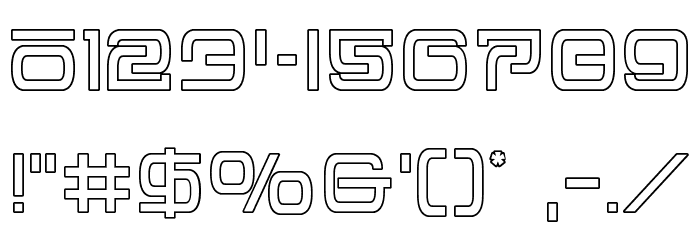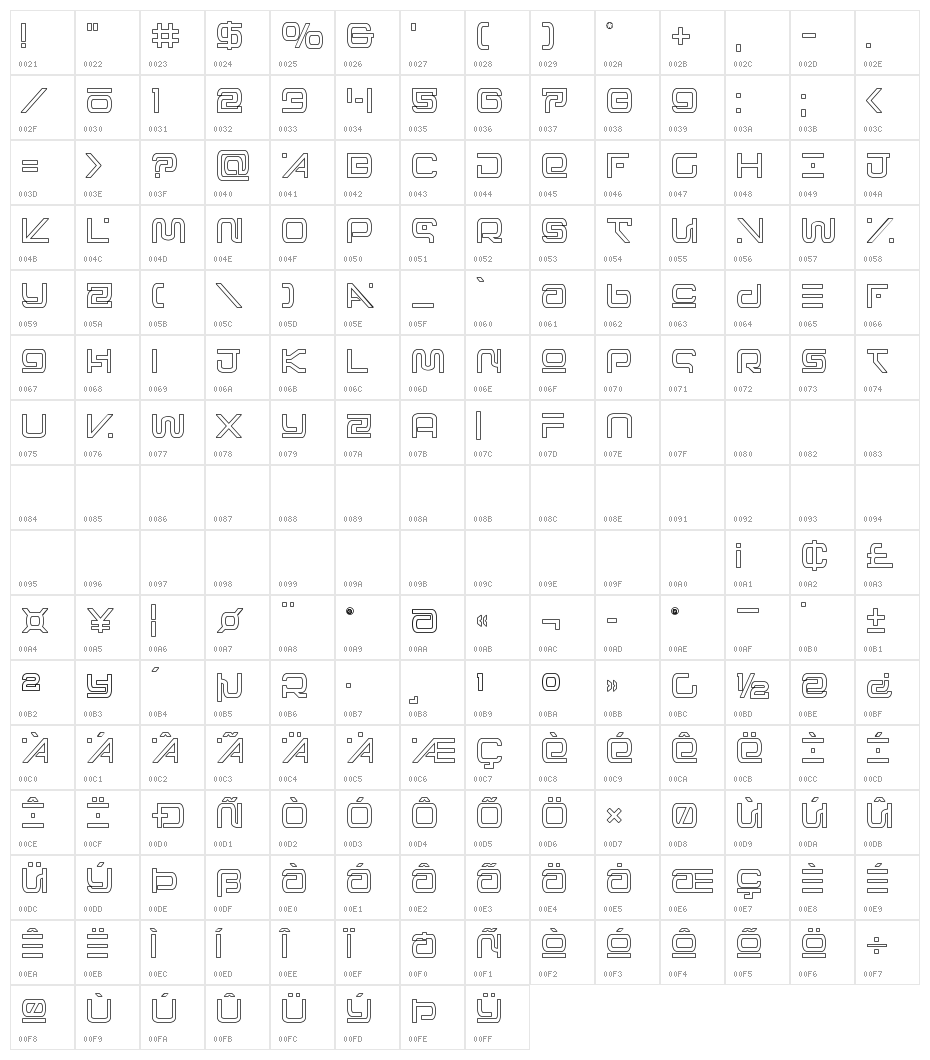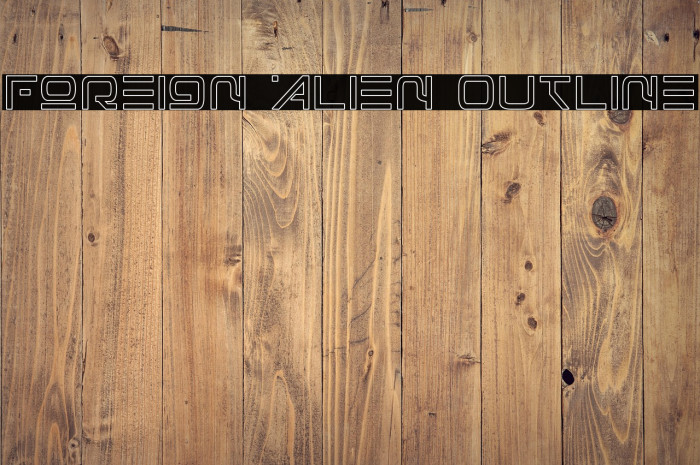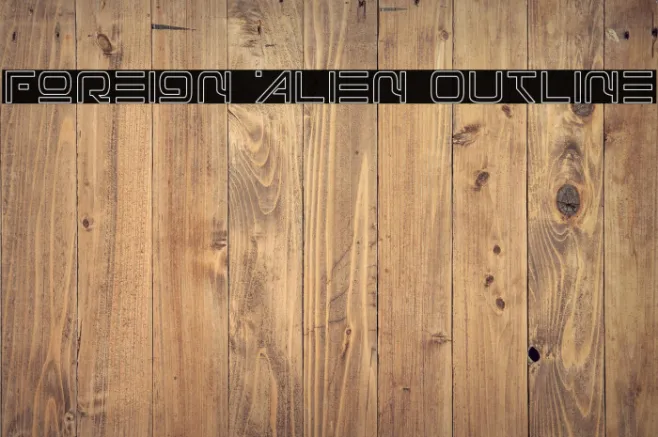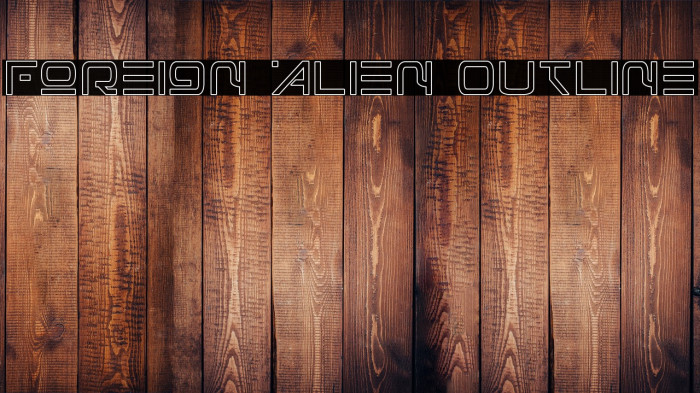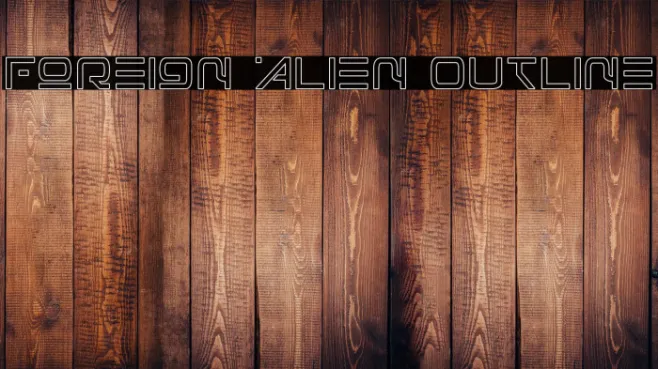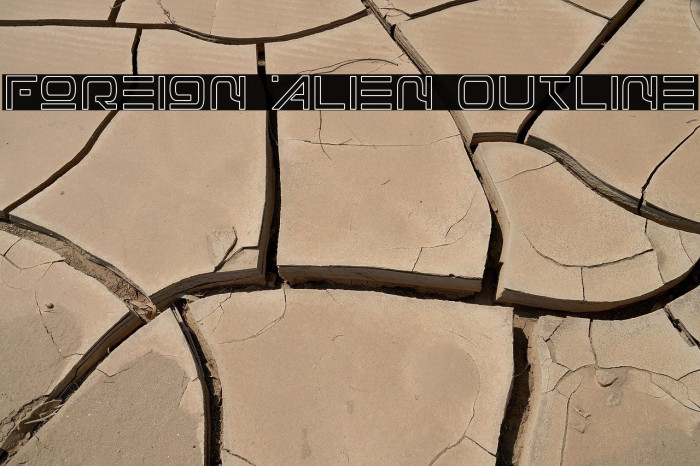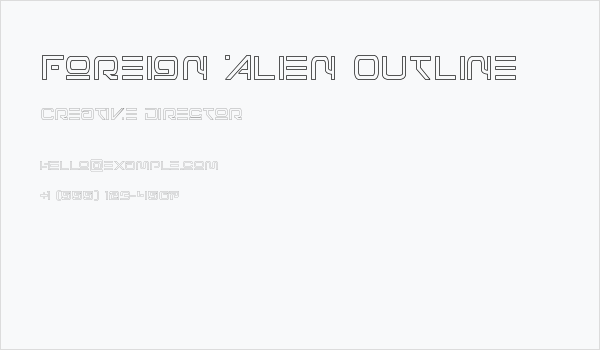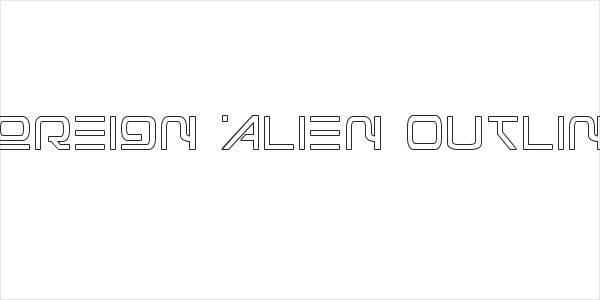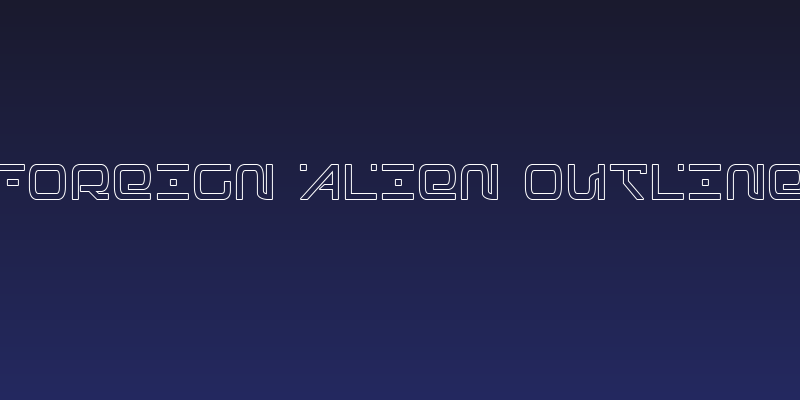
Foreign Alien Outline Font
Foreign Alien Outline Description
This font features a futuristic and geometric design, characterized by its outlined style and sharp angles. The letters are constructed with a consistent line thickness, giving it a uniform appearance. The uppercase and lowercase letters share a similar structure, enhancing its cohesive look. The numerals and special characters maintain the same design principles, ensuring a seamless integration across all characters. The font's unique style makes it stand out, suitable for projects that require a modern and tech-inspired aesthetic.
| Proposed Projects | Ideal for sci-fi themed designs, tech branding, video game titles, and futuristic posters. |